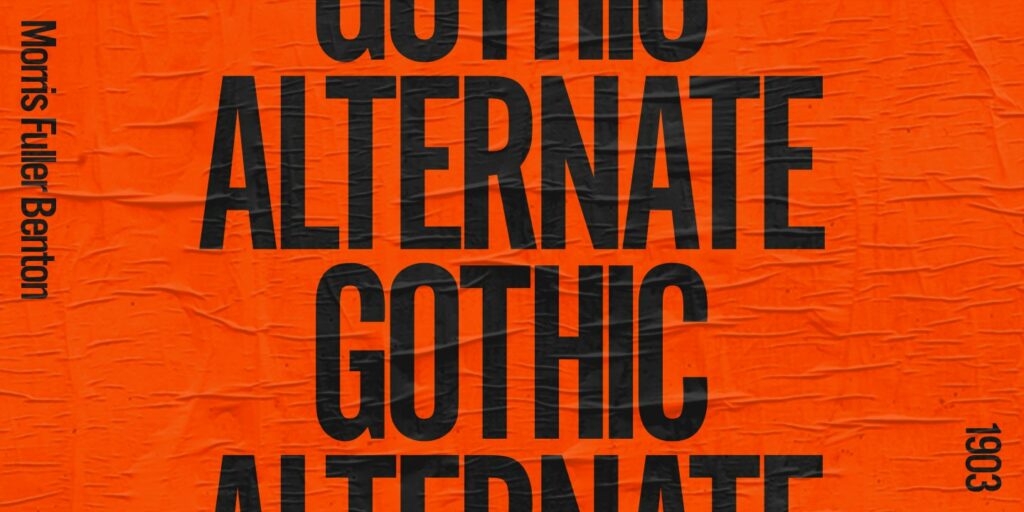
Alternate Gothic Font
Alternate Gothic was designed by Morris Fuller Benton for American Typefounders Company in 1903. All three weights of Alternate Gothic are bold and narrow. In fact, this face is essentially a condensed version of Benton’s other well-known sans serif types, Franklin Gothic and News Gothic. In the early twentieth century, the modern concept of type “families” had not yet been formed — and though Benton designed these sans serifs to harmonize with each other, the foundry gave them different names.
Robust, dark, and coolly competent, Alternate Gothic is a good choice when strong typographic statements must fit into tight spaces. As a modern usage, it is currently the font of YouTube’s homepage logo.